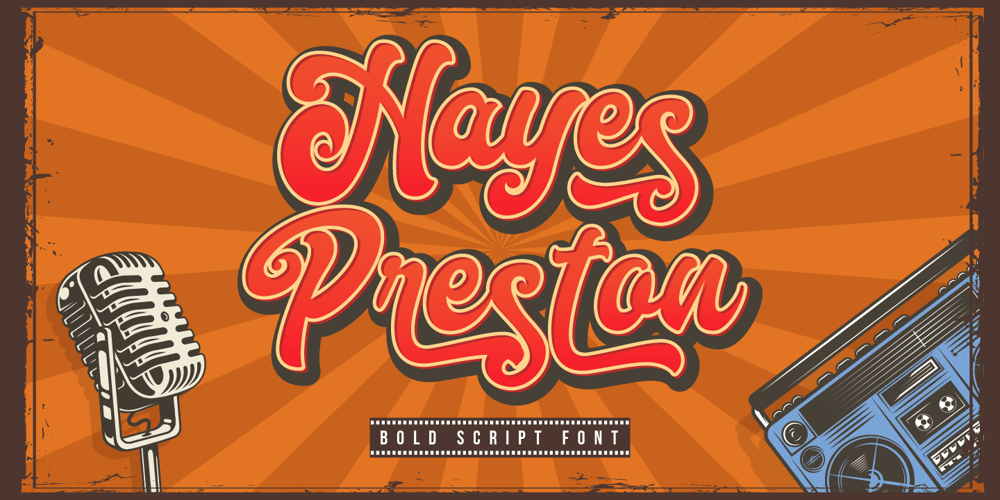
Hayes Preston
Hayes Preston font
Hayes Preston Font Family was designed by Hayinah and published by Rockboys Studio. Hayes Preston contains 1 styles and family package options. Hayes Preston is a bold script which is purposely made for logotype. This type of font perfectly made to be applied especially in logo, and the other various formal forms such as invitations, labels, logos, magazines, books, greeting / wedding cards, packaging, fashion, make up, stationery, novels, labels or any type of advertising purpose.This font is PUA encoded which means you can access all of the outstanding glyphs and swashes with ease! It also features a wealth of special features including alternate glyphs and ligatures.